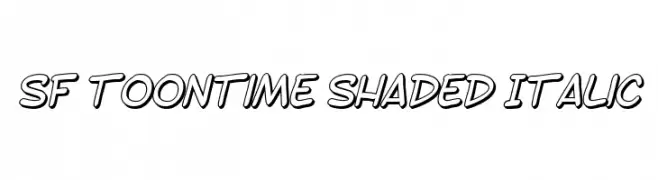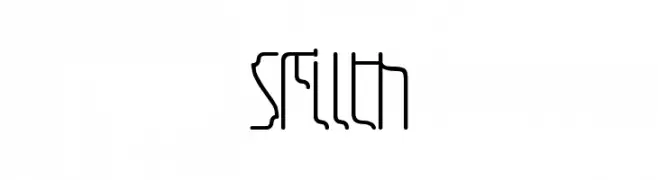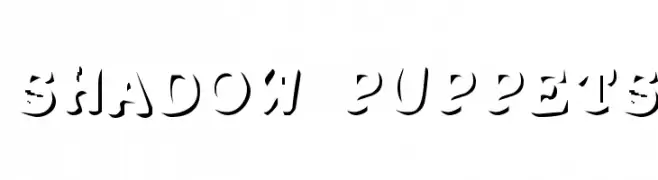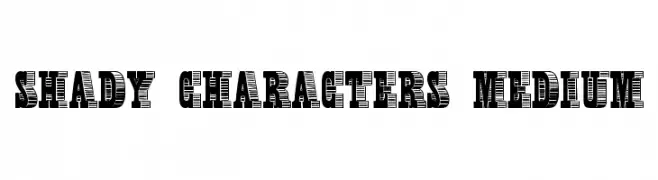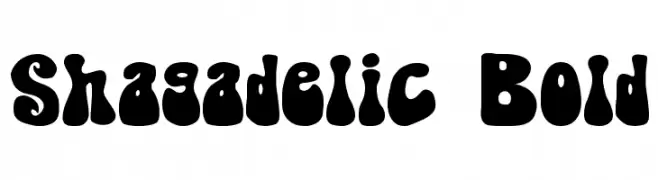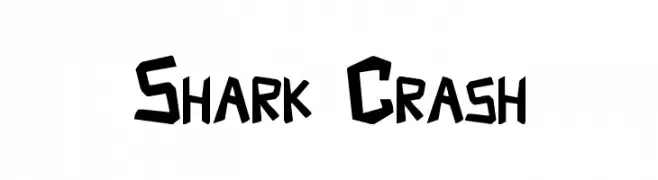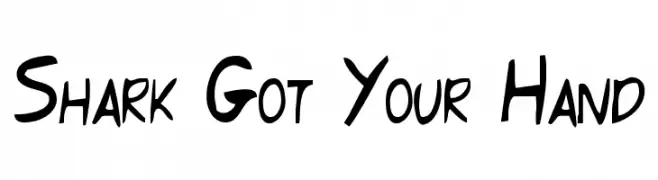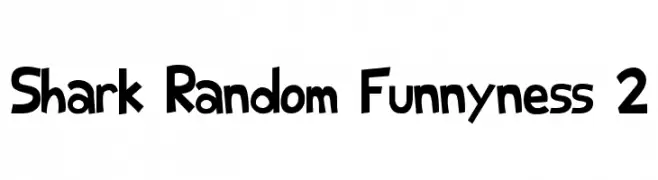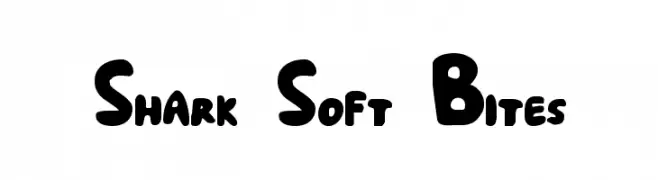
A bold, cartoonish font with a shaded, italic style for playful designs.
A bold, shadowed font with a three-dimensional, artistic style.
A bold, retro-inspired font with playful, bulbous characters.
A bold, angular font with a dynamic and edgy style.
A playful, hand-drawn font with bold and irregular strokes.
A bold, playful font with thick, rounded characters and a dynamic style.
A playful, cartoon-like font with bold, exaggerated letterforms.
A playful, bold font with rounded, bubbly characters.